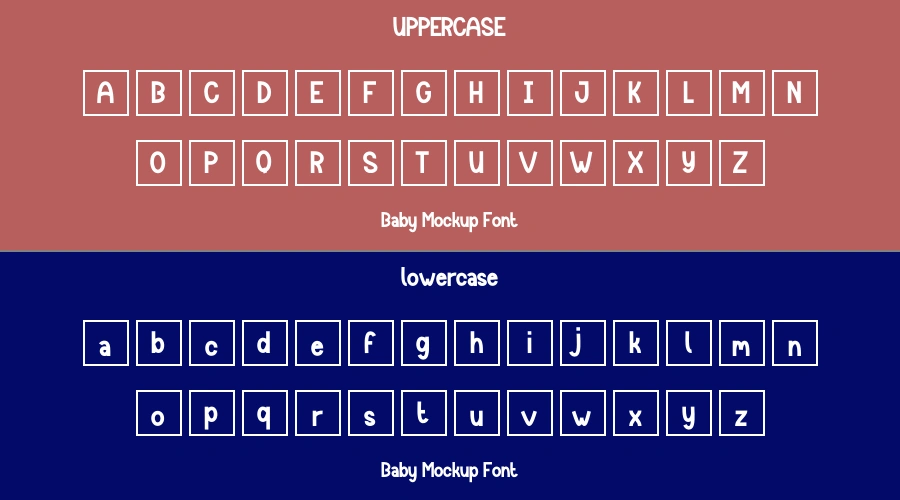
About Baby Mockup Font
Designed with precision, Baby Mockup Font merges precise alignment with textual warmth in every character. This versatility makes it particularly effective for packaging hero, where adaptability and brand power directly impact communication quality. Each letterform demonstrates meticulous craftsmanship.
Technical excellence shines through elements like architectural precision and word marks, enhancing typographic versatility. In data tables settings, Baby Mockup Font proves its worth through superior memory recall. The thoughtful execution of joint detail and technical innovation ensures professional results.